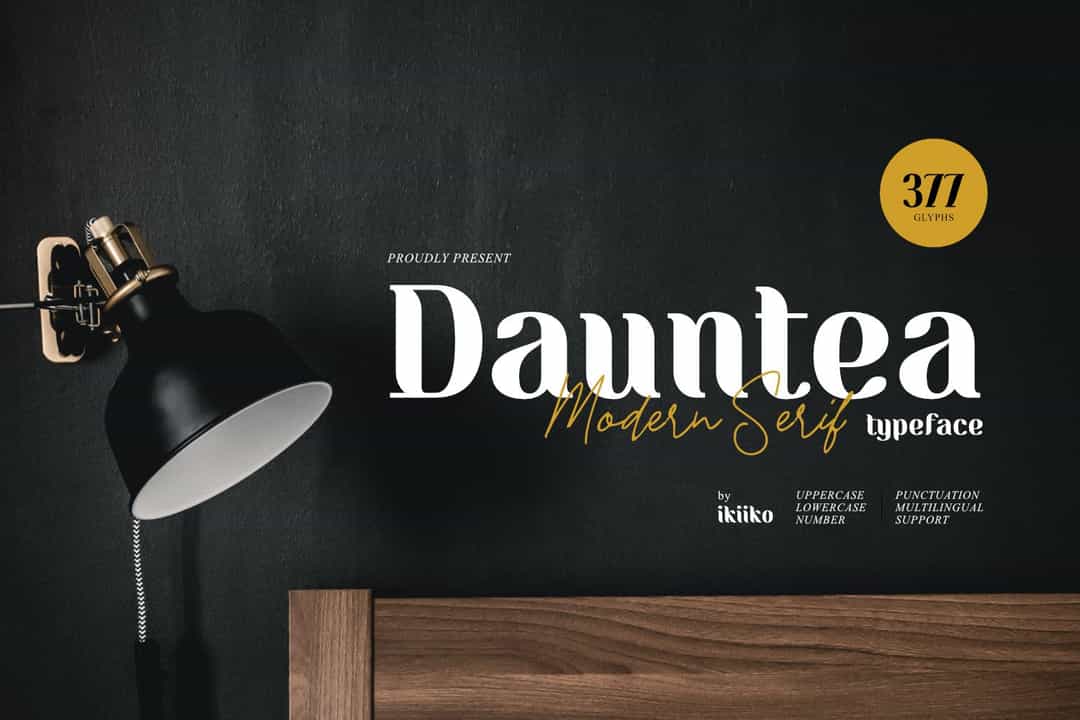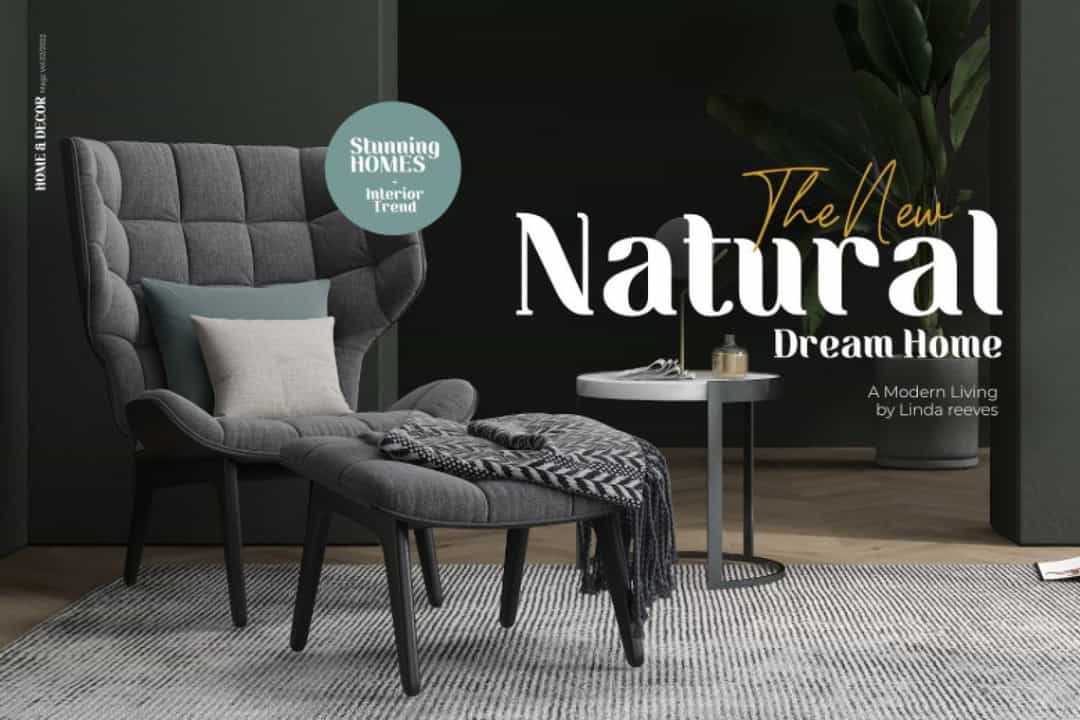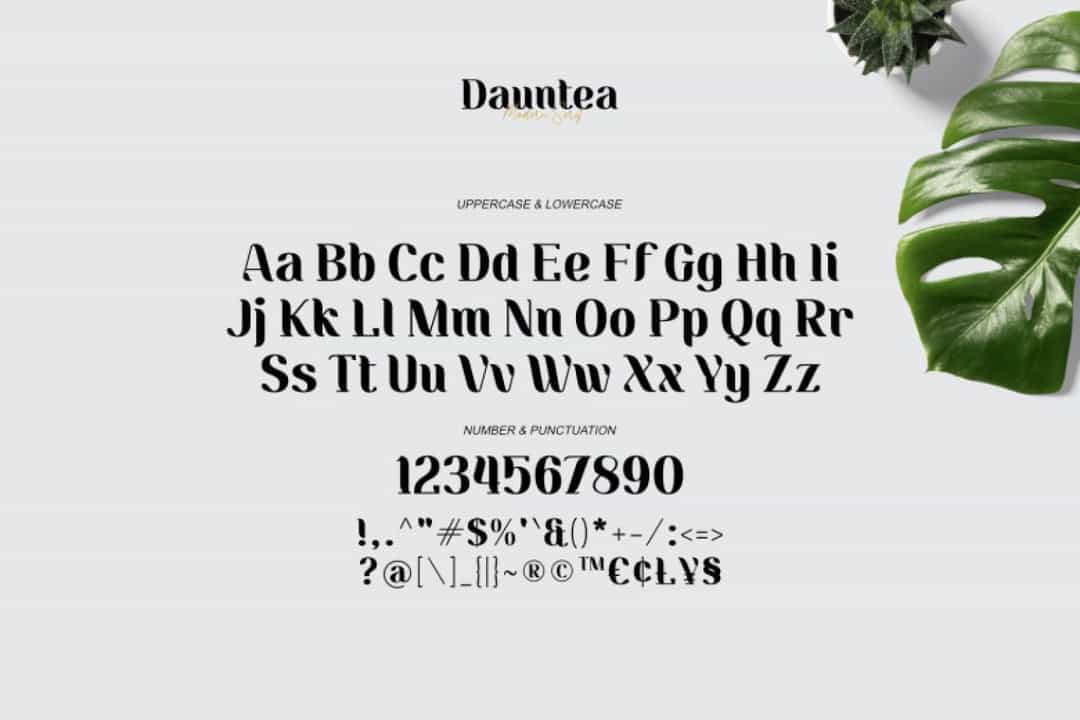
Dauntea, designed by ikiiko, is an impressive serif typeface with a distinctive design influenced by leaf shapes, including its signature tail character that appears in uppercase letters. Dauntea exudes calmness and serenity for an effective overall impression.